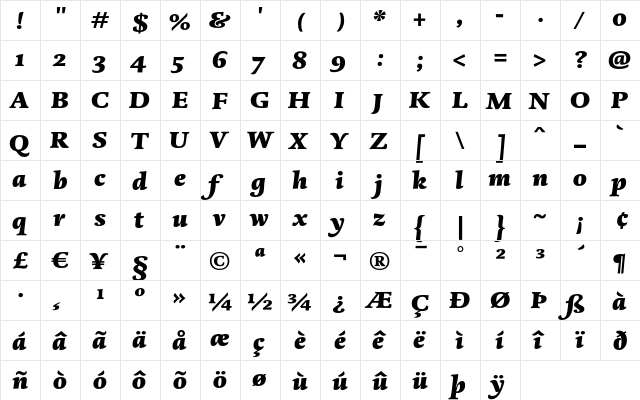
DTLDorianST HeavyItalic
Design Context for DTLDorianST Typeface
DTLDorianST offers clean, dependable letterforms without strong stylistic allegiance, making it a practical choice for designers who need flexibility. Its italic angle brings a sense of urgency and motion to the letterforms.
Pro Tip: Use DTLDorianST for emphasis, pull quotes, and subheadings where its slanted energy can add rhythm to the layout.